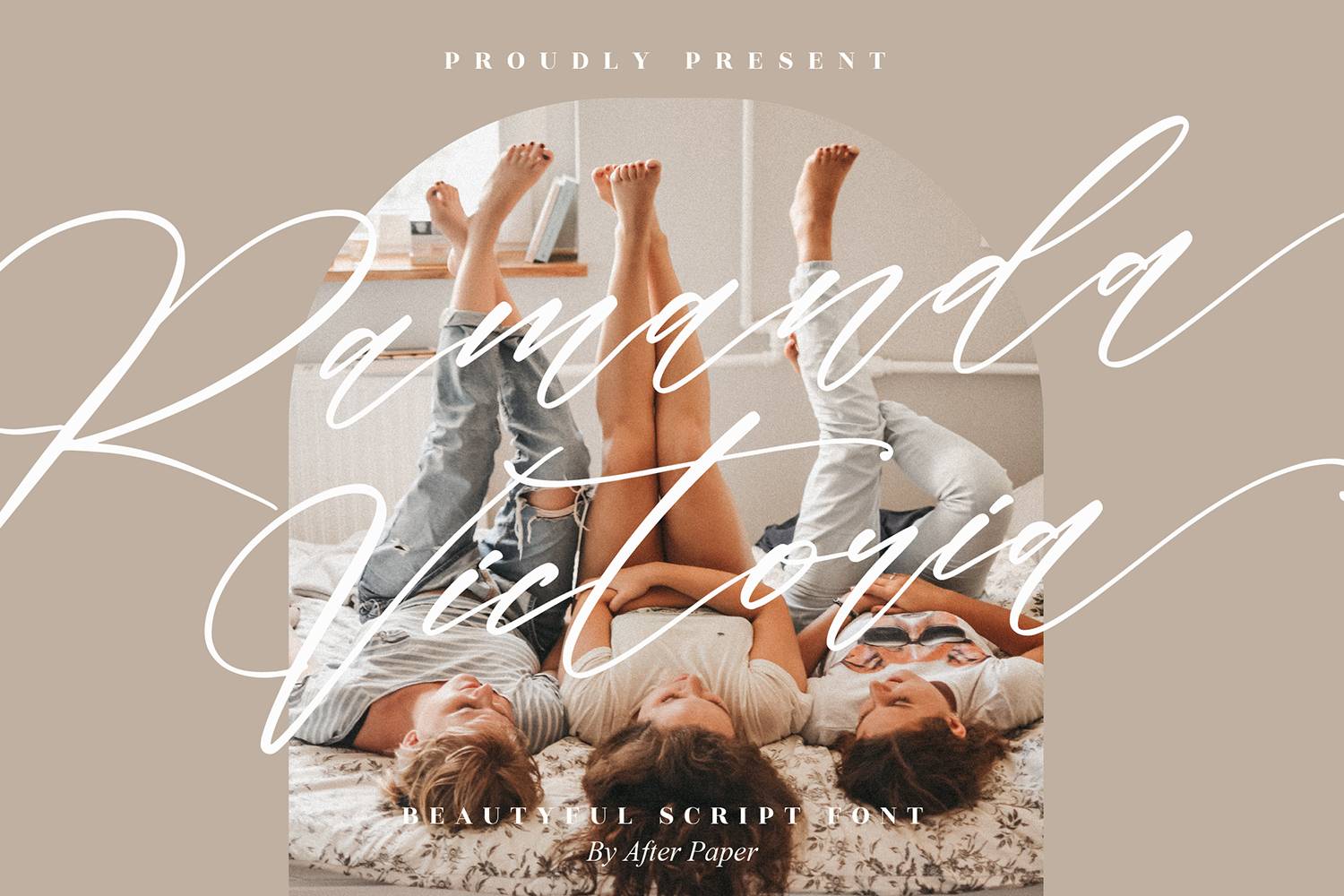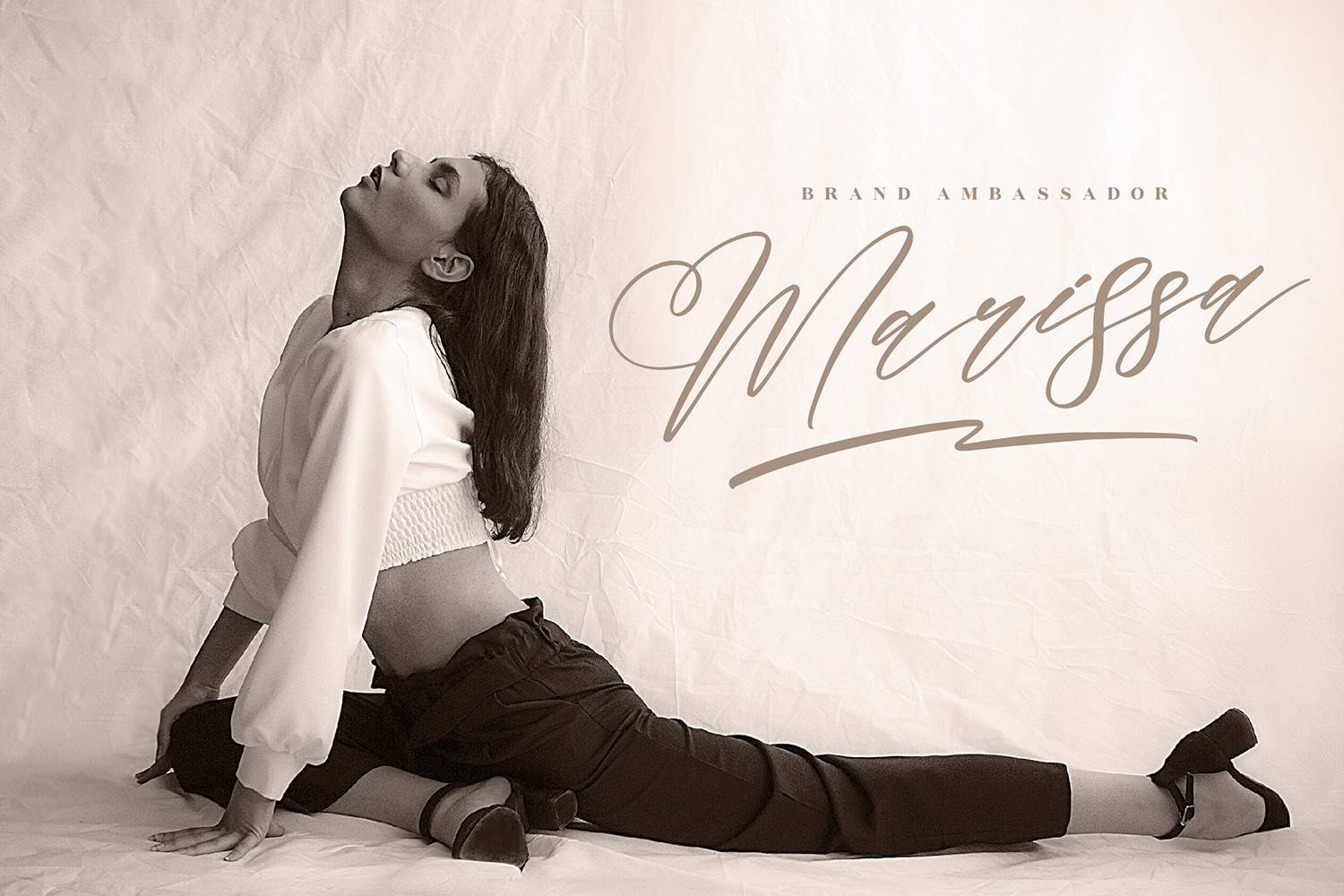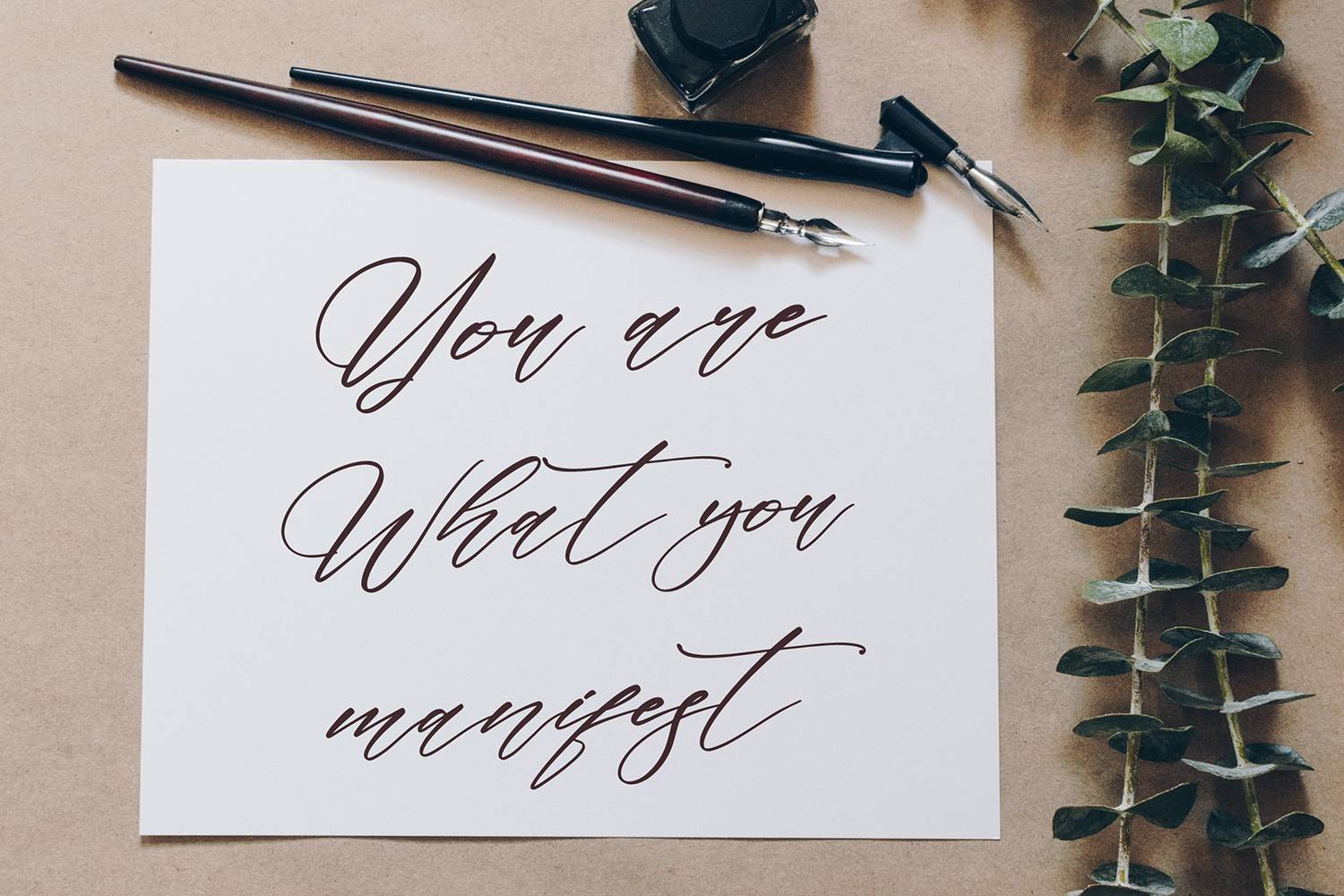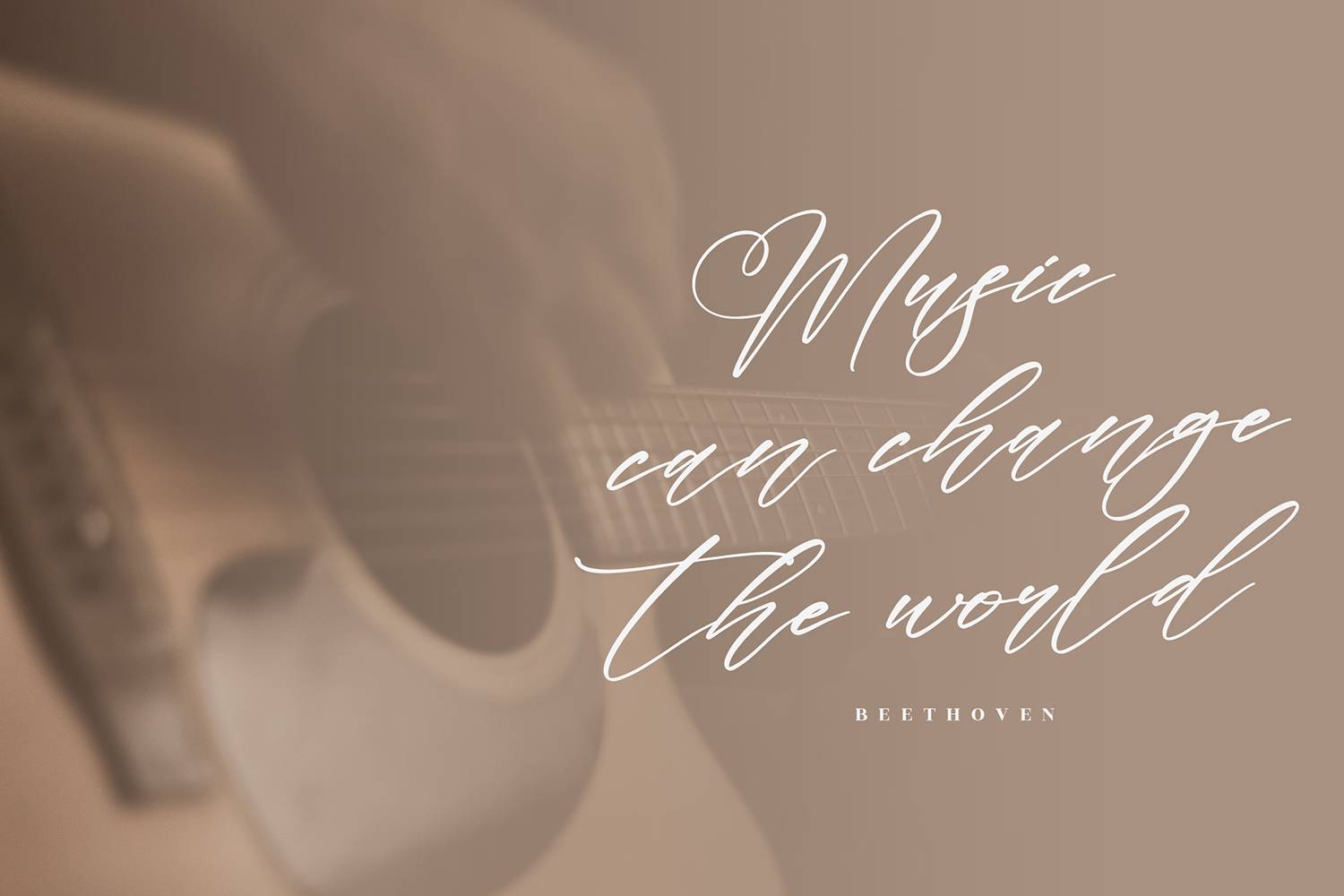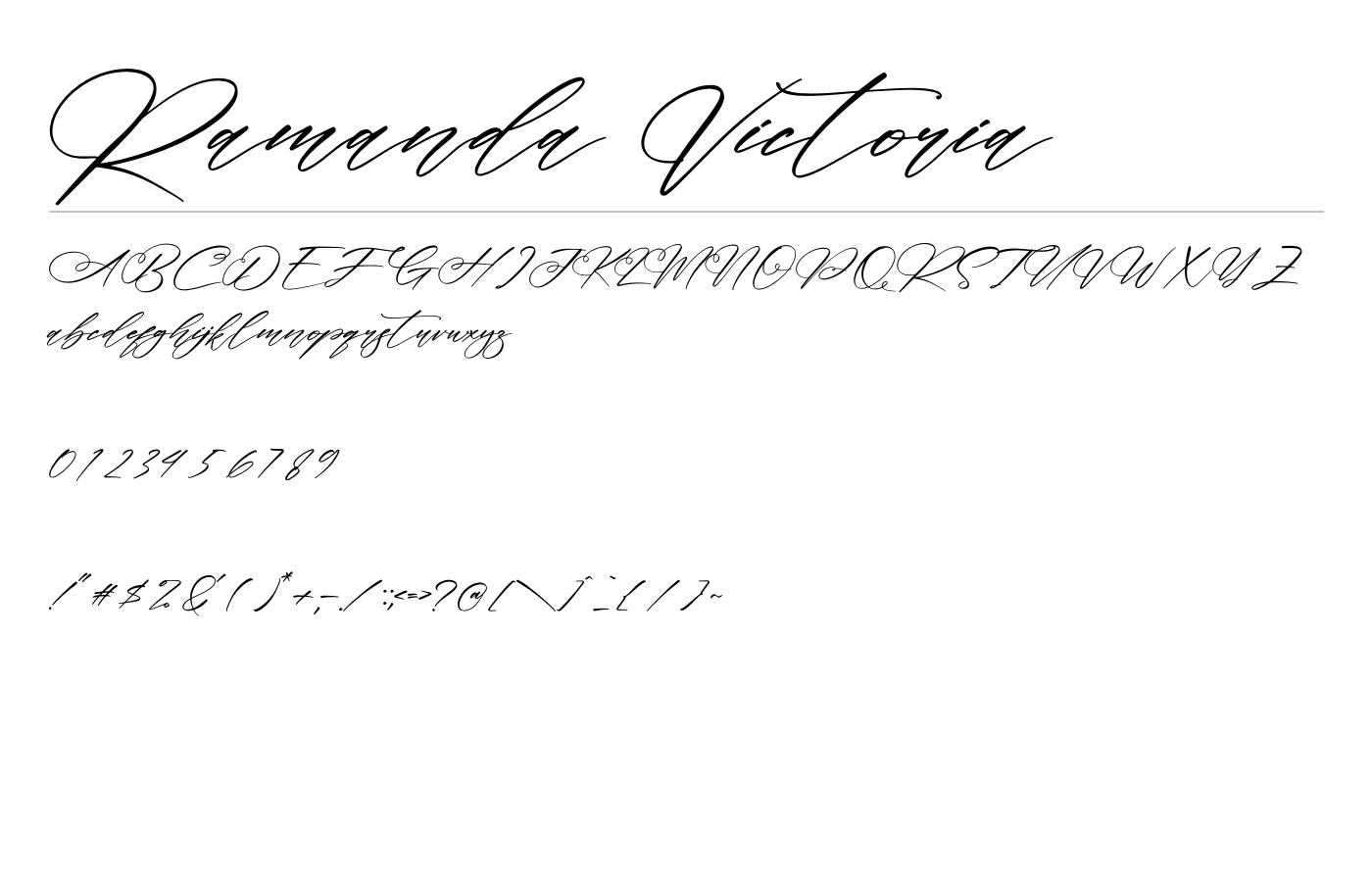
Ramanda Victoria is an elegant, handwritten script font that features delicate and flowing strokes with high contrast between thick and thin lines. Its graceful letterforms and refined cursive style evoke a sense of sophistication and romance, making it ideal for wedding invitations, luxury branding, and feminine editorial designs. This font works best in large sizes where its intricate details can shine, lending an artistic and personal touch to any project.
Ramanda Victoria Font
About Ramanda Victoria Font